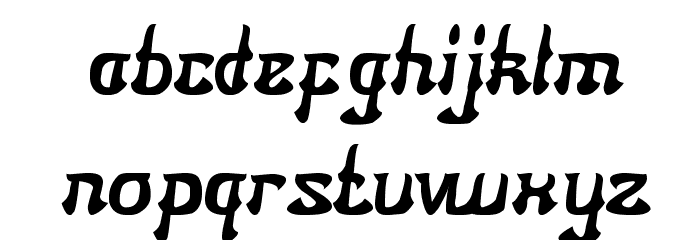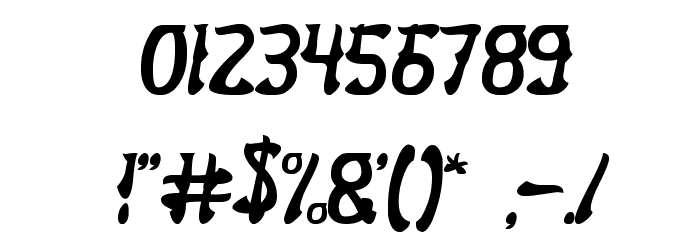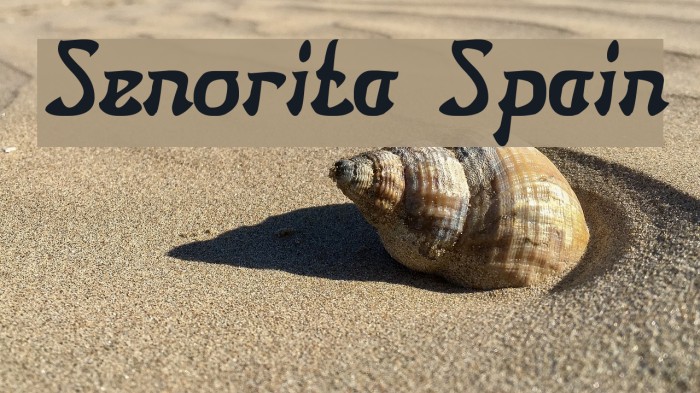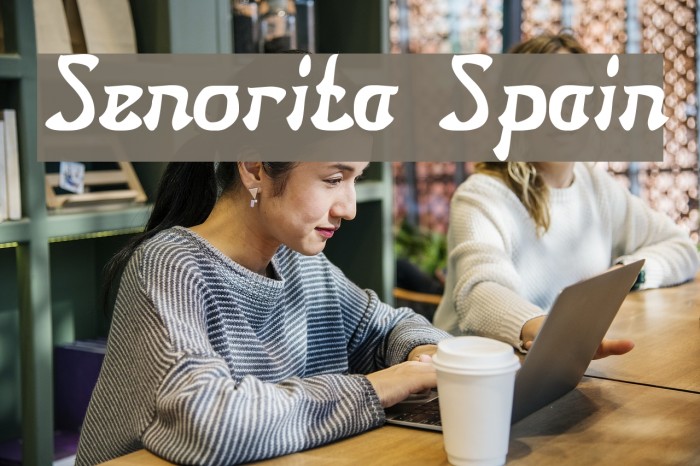
Senorita Spain Font
This font features a distinctive, flowing script style with a touch of elegance and flair. The characters are designed with a slight slant, giving them a dynamic and lively appearance. The uppercase letters are bold and prominent, while the lowercase letters maintain a consistent flow, enhancing readability. The numerals are well-proportioned and align seamlessly with the overall style. Special characters are crafted with the same attention to detail, ensuring they complement the alphabetic characters. This font's unique style makes it suitable for creative and expressive projects.
A dynamic and elegant script font with a lively, flowing style.
- Proposed Projects: Ideal for wedding invitations, greeting cards, branding, and logo design.
- Use Case: Logos, Headlines, Invitations